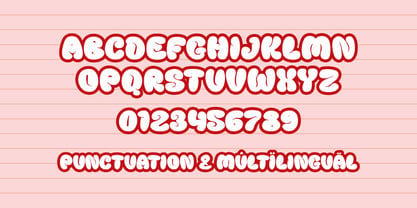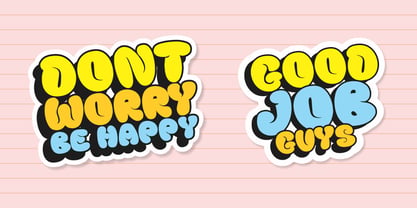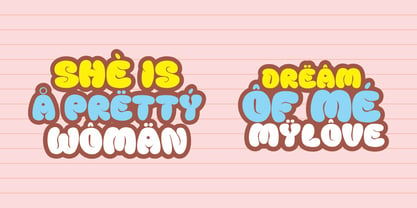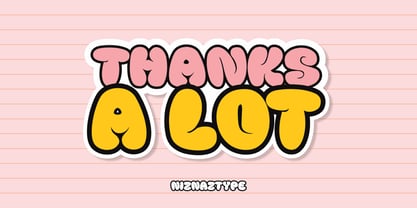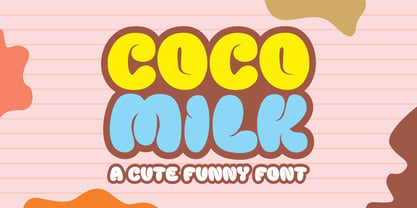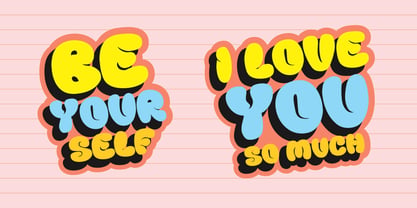
Cocomilk
Die Schriftfamilie Cocomilk wurde von Muhammad Nazarudin entworfen und von Niznaztype veröffentlicht. Cocomilk enthält 1 Stile. Mehr über diese Familie
Cocomilk is a cute funny font. It look has a fun, cute and happy style. Very suitable to used in comic work or illustration. Form of Cocomilk shape is bold and fat. A playful cartoon comic typeface with unique shape. Cocomilk also comfortable for designs, such as product tittle, book cover, ballon text, wallpainting letter, t-shirt and more others. Design themes like comic, cartoon, kids, children are very good if used Cocomilk font. The consumer especially the children actually so like to look this cute font. Cocomilk consist of : - Uppercase - Lowercase - Numeral and punctuation - Multilingual Language Please, enjoy it with Cocomilk a cute funny font